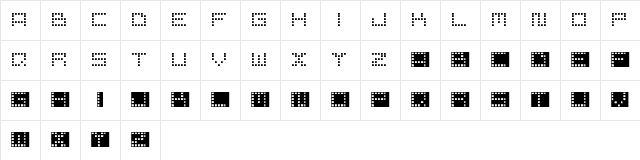
pixel point Regular
Designer: hofman52
Design Context for pixel point
pixel point is rooted in pixel-grid construction, making it a natural fit for game UI, retro computing aesthetics, and digital nostalgia projects.
Pro Tip: Use pixel point at sizes that align with its pixel grid for the sharpest rendering - scaling to non-integer multiples can introduce unwanted blur.